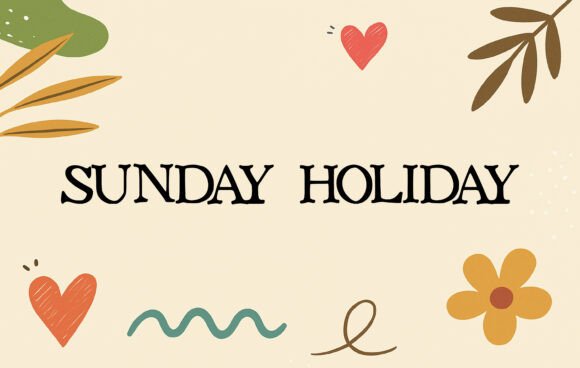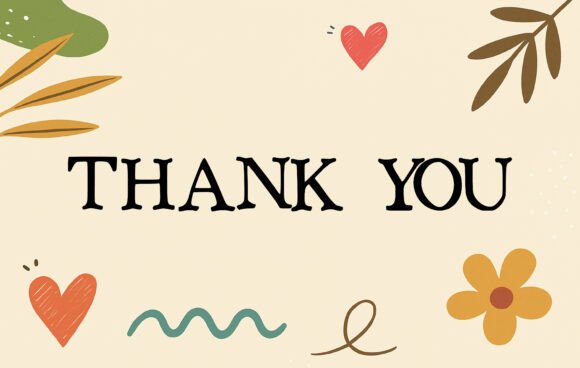
Cynthia Font: Elevate Your Designs with Elegance and Versatility
In the world of typography, fonts play a crucial role in bringing creative ideas to life. Among the numerous fonts available, Cynthia Font stands out as a true favorite among designers and crafters. This beautifully designed font is legible, versatile, and perfect for a wide range of applications, from magazine headlines to wedding invitations. In this article, we’ll explore the features and benefits of Cynthia Font, and how it can take your designs to the highest level.
Legibility and Versatility
Cynthia Font is designed to be highly legible, making it suitable for both title and body text. Its clear and elegant letterforms ensure that your message is conveyed effectively, whether you’re creating a magazine headline or a social media post. The font’s versatility is one of its most significant advantages, allowing you to use it across various design projects, including:
- Magazine headlines and articles
- T-shirts and apparel
- Branding and advertising materials
- Cards and greeting cards
Cynthia Font is an excellent choice for designers and crafters who want to add a touch of elegance and sophistication to their work. Whether you’re creating a professional design project or a personal craft, this font will help you achieve your goals. Its flexibility and legibility make it an ideal choice for:
Why Choose Cynthia Font?
With so many fonts available, why choose Cynthia Font? Here are a few compelling reasons:
- Elegance and sophistication: Cynthia Font exudes elegance and sophistication, making it perfect for designs that require a touch of refinement.
- Legibility: The font’s clear and well-spaced letterforms ensure that your text is easy to read, even at small sizes.
- Versatility: Cynthia Font can be used across various design projects, from digital media to print materials.
Tips for Using Cynthia Font
To get the most out of Cynthia Font, here are some tips to keep in mind:
- Experiment with font sizes: Cynthia Font looks great at various font sizes, from large headlines to smaller body text.
- Pair with other fonts: Try pairing Cynthia Font with other fonts to create a unique and visually appealing design.
- Use in combination with images: The font’s elegance and sophistication make it an excellent choice for use in combination with images and graphics.
Cynthia Font is an exceptional choice for designers and crafters looking to elevate their designs with elegance and versatility. Its legibility, flexibility, and sophistication make it perfect for a wide range of applications, from magazine headlines to wedding invitations. Whether you’re a professional designer or a crafty DIY enthusiast, Cynthia Font is sure to become a favorite in your toolkit.